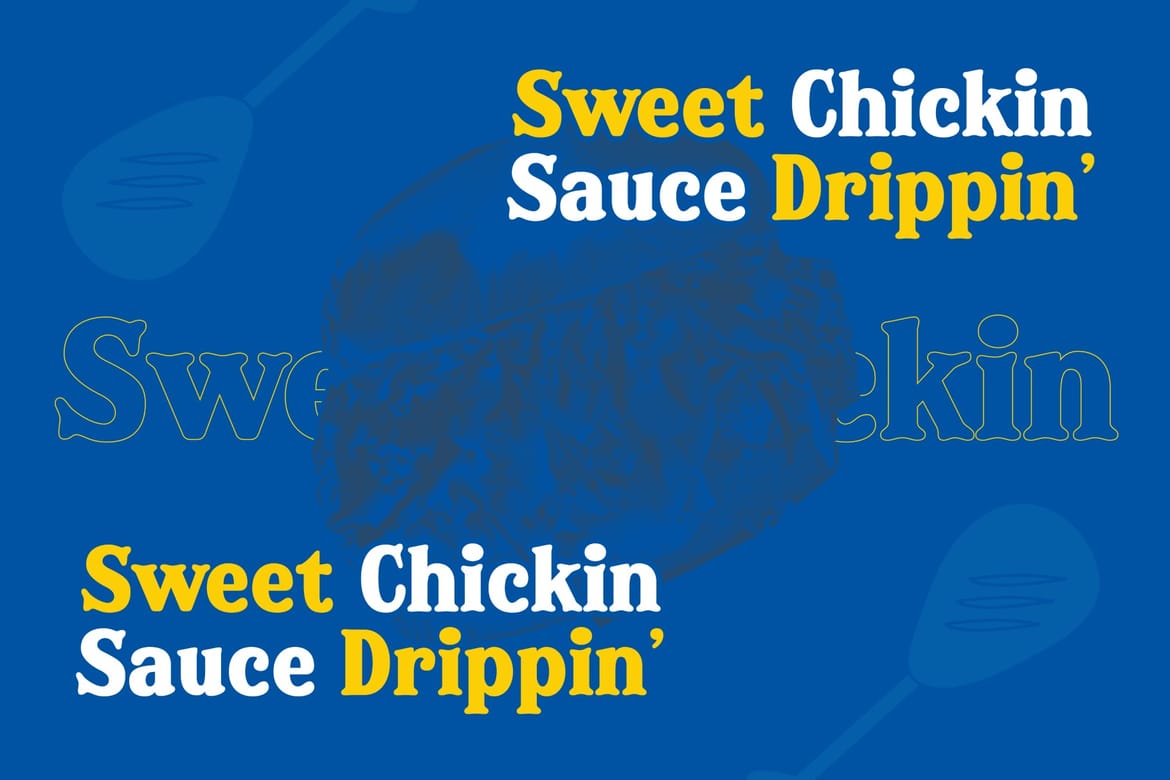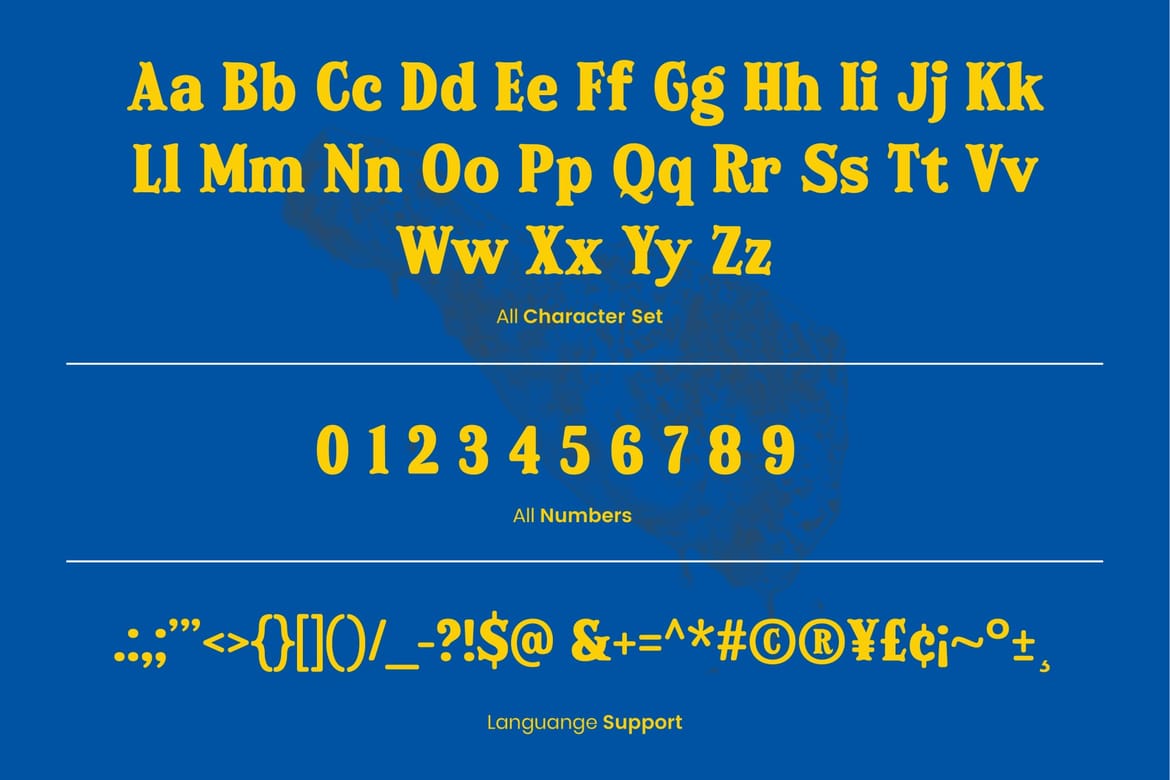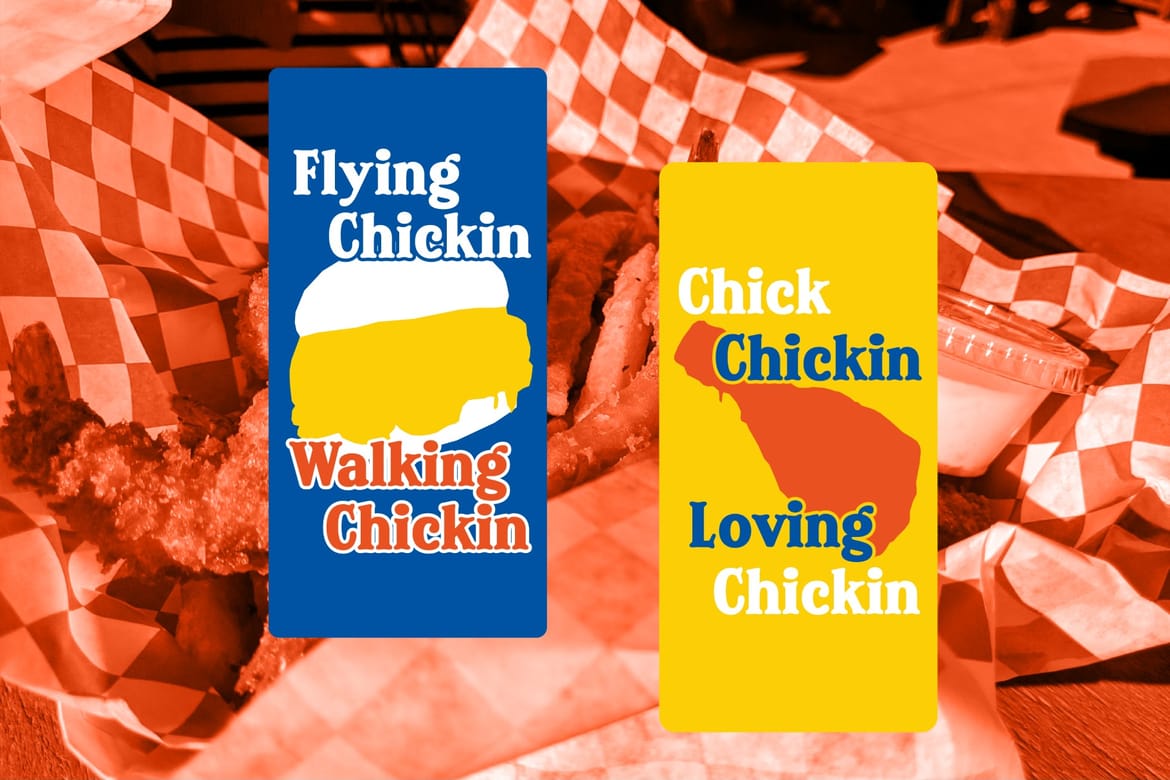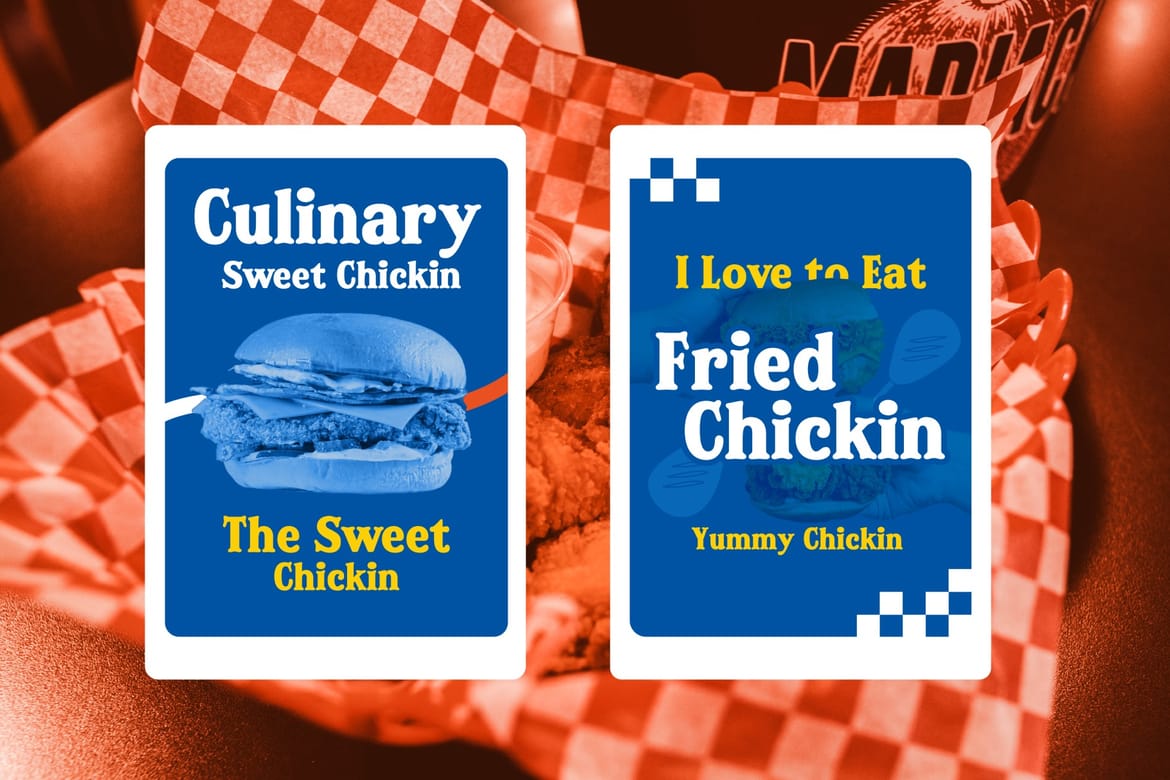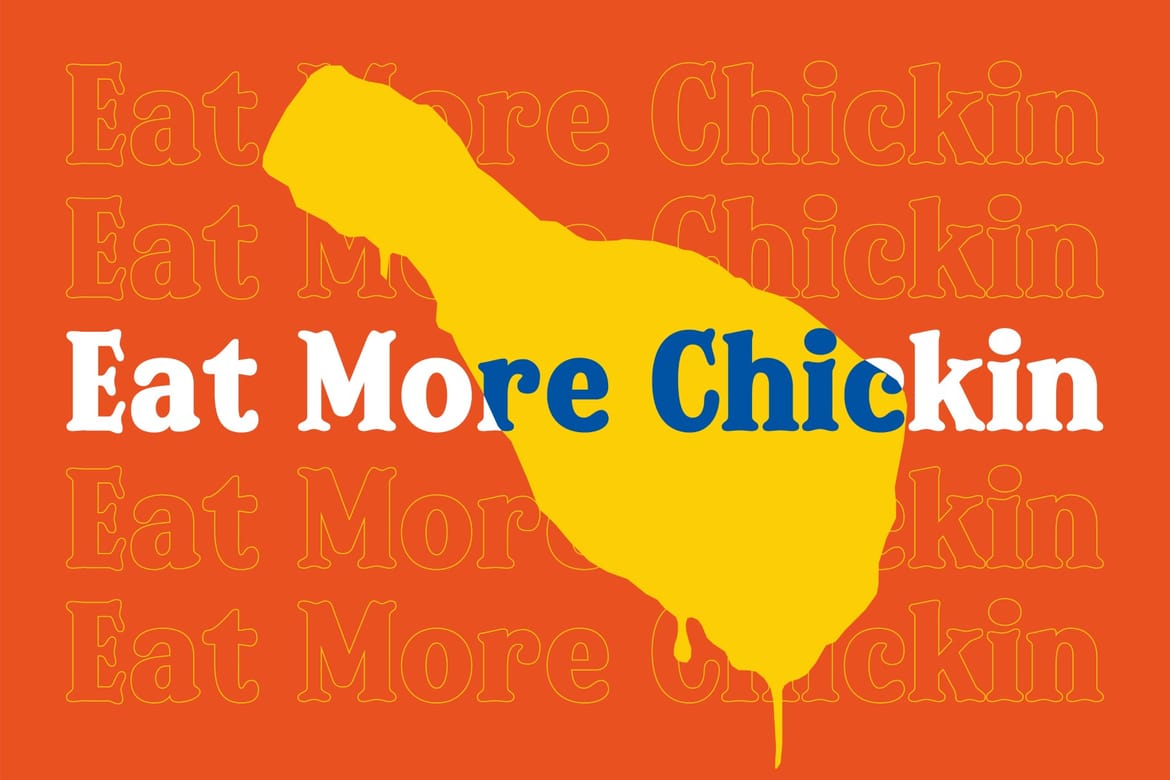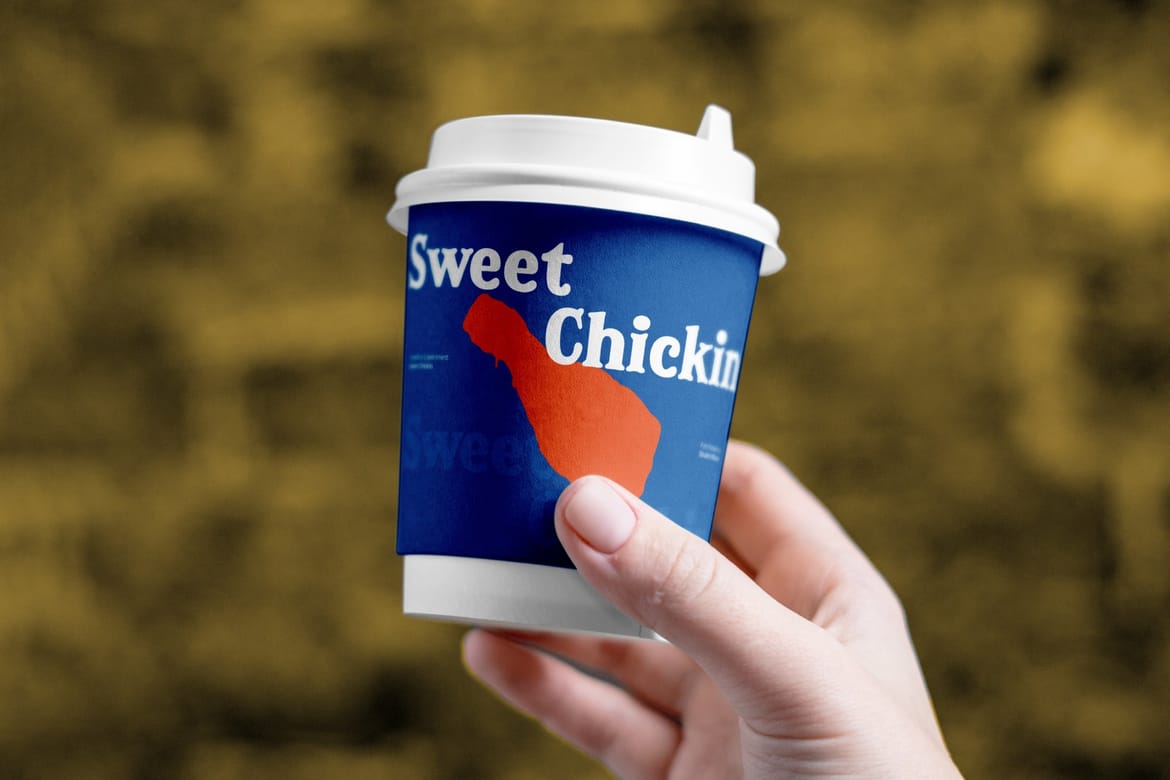
Sweet Chickin is a bold and playful serif display font with a vintage fast-food-inspired aesthetic. Featuring chunky letterforms, fun curves, and retro vibes, it’s perfect for branding, menus, posters, and eye-catching headlines. With a nostalgic yet modern touch, Sweet Chickin brings energy and personality to any creative project.
Bold retro serif with a playful vintage diner vibe
Perfect for food branding, restaurant signage, and streetwear-inspired visuals
Layered shadow effect creates a loud eye-catching look full of energy and nostalgia